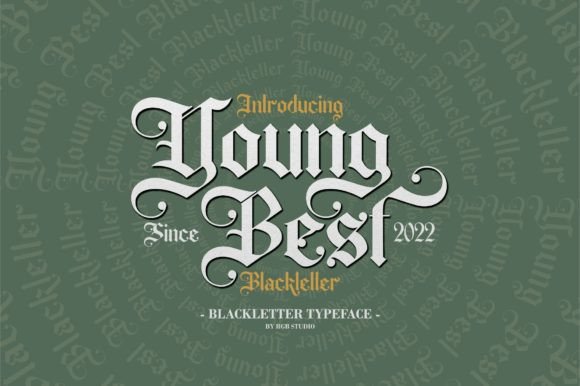
Unleash your inner artist with Young Best Font, a breathtaking blackletter masterpiece that will elevate your designs to new heights. This font family is a visual symphony of bold and daring typography, meticulously crafted to capture the essence of creativity and expression. Immerse yourself in the world of Young Best and let your imagination run wild.
With Young Best, you'll have the power to transform your projects into captivating works of art. Its striking glyphs and swashes dance across the page, creating an unforgettable visual experience. Whether you're designing product packaging, branding, or any project that demands bold typography, Young Best is your perfect companion.
Experience the freedom of customization with Young Best's PUA encoding. Effortlessly access the entire spectrum of glyphs and swashes, opening up endless possibilities for creative expression. Unleash your individuality and let your designs shine with a unique and captivating touch.